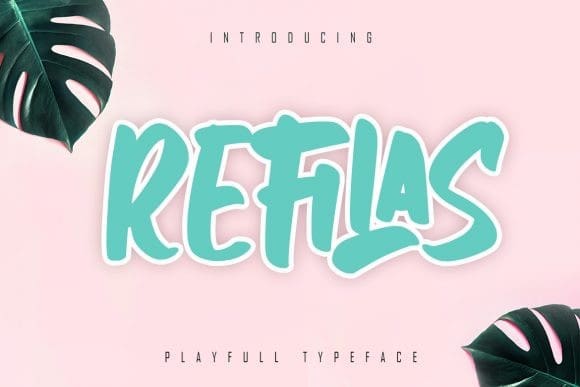
Refilas Font
Refilas Font is a fun and cool display font, that can easily stand out. Simple but with a strong visual effect, this font will instantly make your creation more appealing than any others.